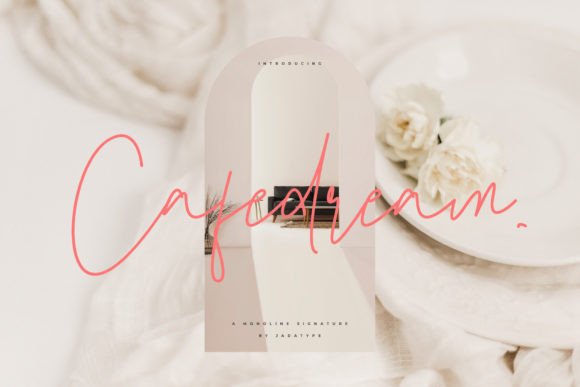
The Ultimate Guide to Cafedream Font: Elevate Your Designs with Style
Have you ever been in the middle of a design project, and suddenly, you’re stuck on finding the perfect font? I recall a recent experience where I was working on a branding project for a trendy coffee shop. The client wanted a font that was both stylish and elegant, but also conveyed a sense of warmth and approachability. After hours of searching, I stumbled upon Cafedream Font, and it was love at first sight! ✨ In this article, we’ll dive into the world of Cafedream Font, exploring its features, uses, and alternatives.
An Honest Review of Cafedream Font
Cafedream Font is a stylish script monoline font that has captured my heart. Here’s what I love about it:
• ✨ Elegant and sophisticated design
• ✅ Highly versatile for various design projects, including photography, social media, music covers, branding, and products
• 💫 Supports OpenType features, glyphs, and stylistic alternates
• 🎨 Perfect for handwritten and creative projects
However, I did notice a few quirks:
• 🤔 Limited character set compared to other fonts
• ⚠️ May not be suitable for body text or long-form content
The Backstory of Cafedream Font
Cafedream Font was designed with the intention of creating a stylish and elegant script font that captures the warmth and approachability of a cozy coffee shop. The designer aimed to create a font that’s both versatile and eye-catching, perfect for a wide range of design projects.
What is Cafedream Font? Cafedream Font is a stylish script monoline font suitable for various design projects.
What design projects is Cafedream Font best suited for? Cafedream Font is perfect for photography, social media, music covers, branding, products, handwritten, and creative projects.